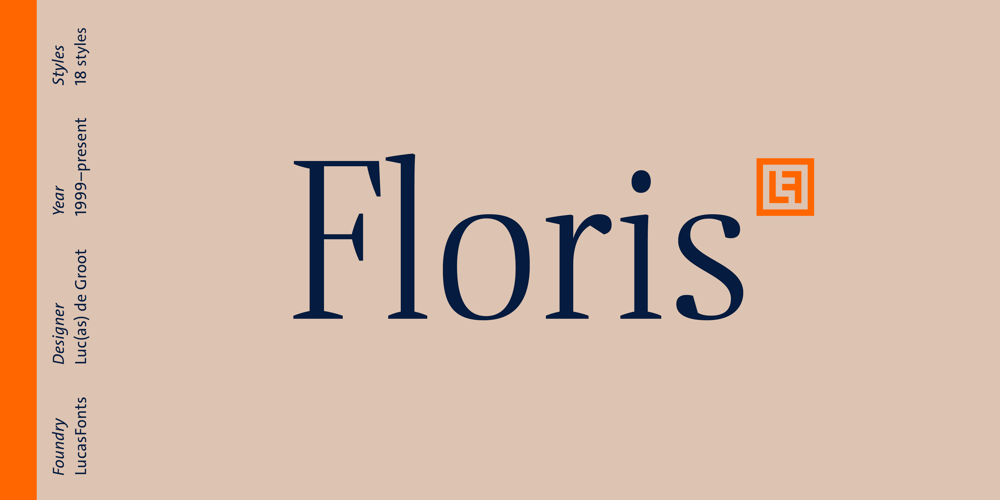
Floris Font Family was designed by Luc(as) de Groot and published by LucasFonts. Floris contains 17 styles and family package options. Floris was developed on a four-dimensional grid of several axes or parameters: weight, width, x-height and ascender/descender height. This makes it possible to allow for fast customization – i.e., the design of Floris versions made according to customers’ specifications.